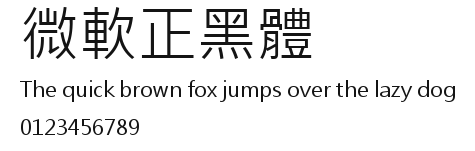
微軟正黑體 Preview
• Font Name: 微軟正黑體
• Font ID: 微軟正黑體
• Full Font Name: 微軟正黑體
• Version: Version 0.75
• PostScript Name: MicrosoftJhengHeiRegular
• Character Count: 28941
• Designer: Monotype Imaging Inc.
• Manufacturer: Microsoft Corporation
About 微軟正黑體.ttf
微軟正黑體.ttf is a modern, elegant sans-serif font designed for ultimate readability and visual harmony. Perfect for branding, headlines, web design, and print materials.